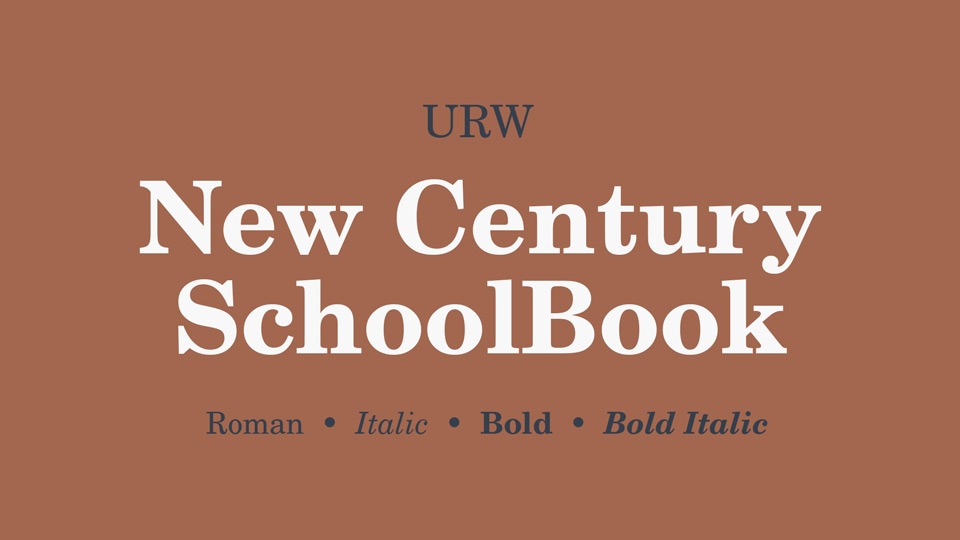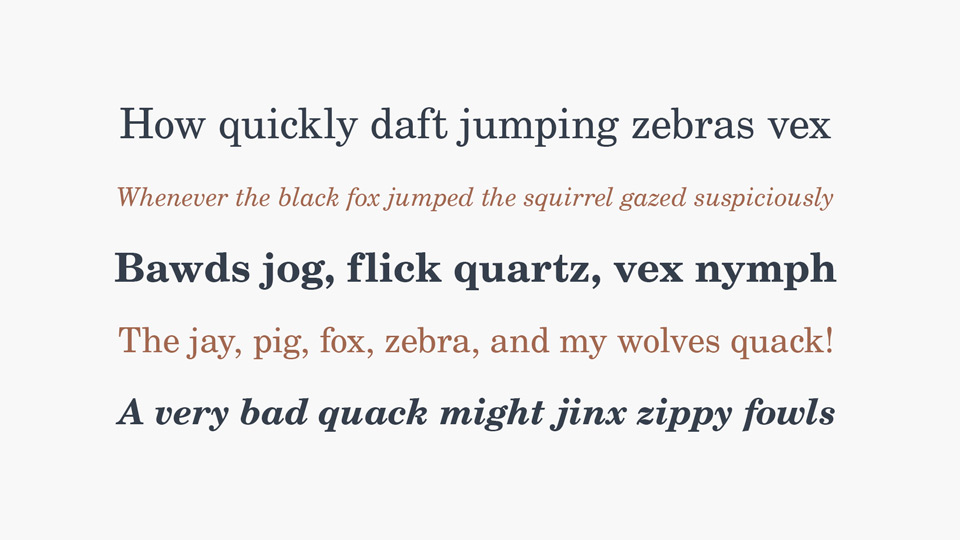
New Century Schoolbook (C059) is a transitional serif typeface based on the Century Schoolbook designed by Morris Fuller Benton in 1919 for the American Type Founders.
New Century Schoolbook type family comes in Regular and Bold weights, including corresponding Italics, supports Latin, Cyrillic and Greek languages.